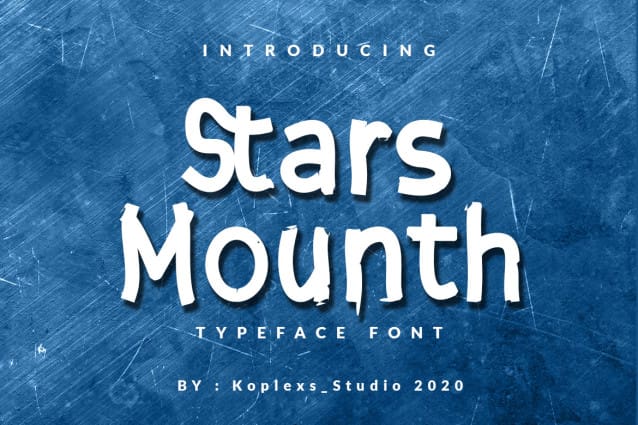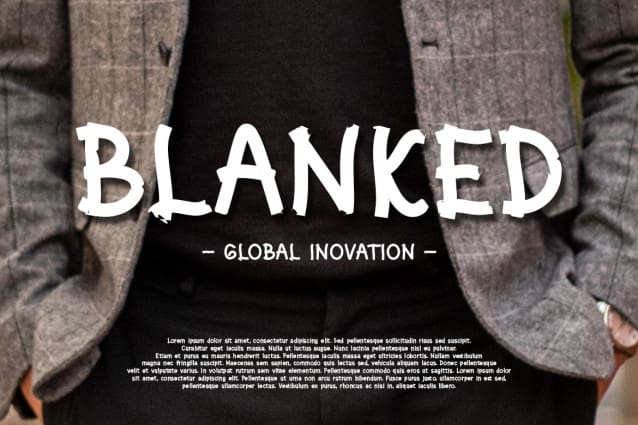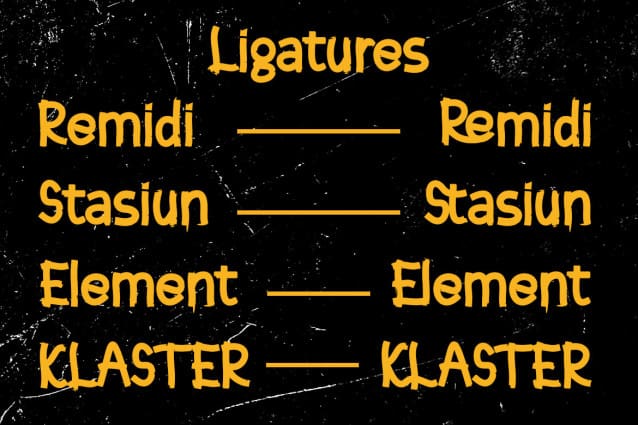
Stars Mounth Typeface
Stars Mounth Typeface a new modern & fresh display and tipeface style make this font looks elegant, natural, stylish and perfect for any awesome projects that need handwriting taste.
Stars Mounth Font would perfect for logo & Branding, watermark, social media posts, advertisements, logos & branding, product designs, label, stationery, logo designs, vintage design, retro design, product packaging, special events or anything that need handwriting taste.